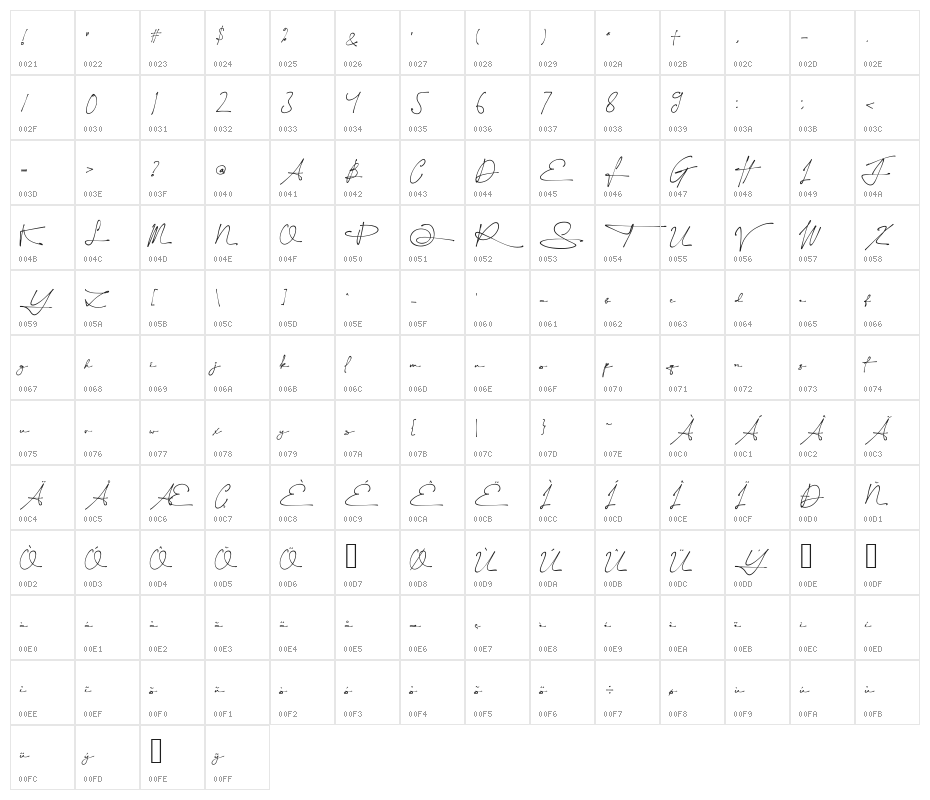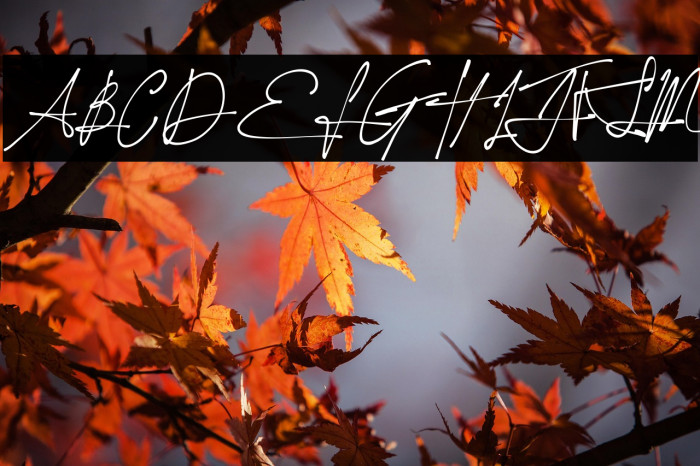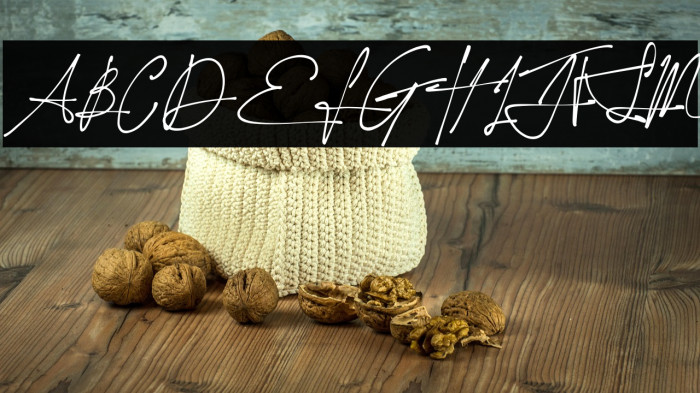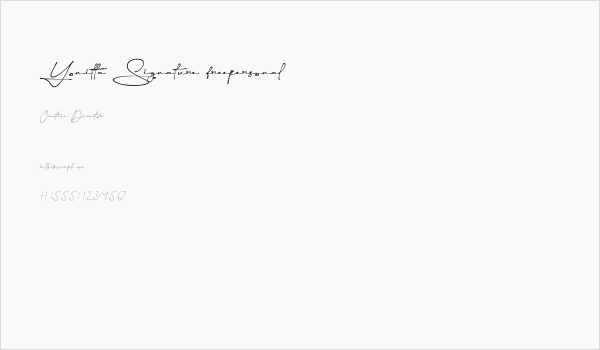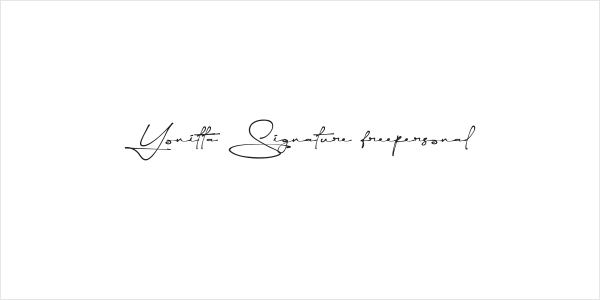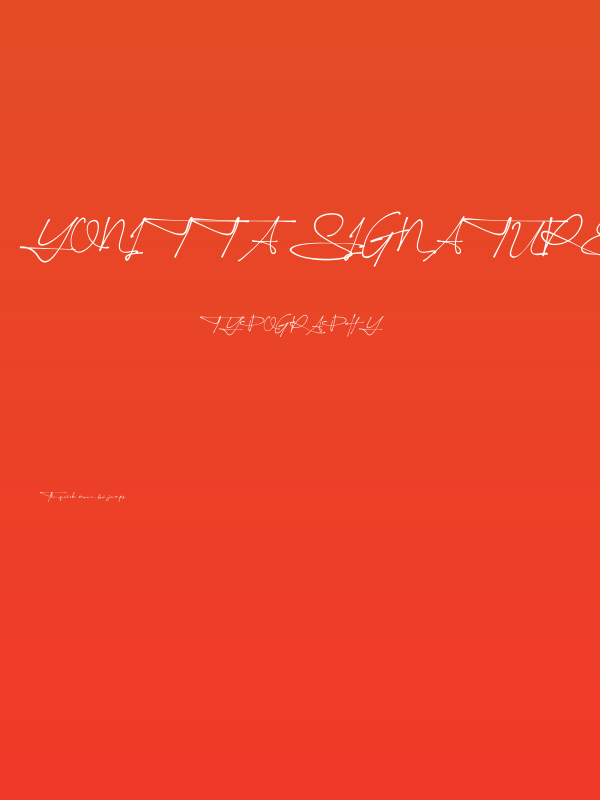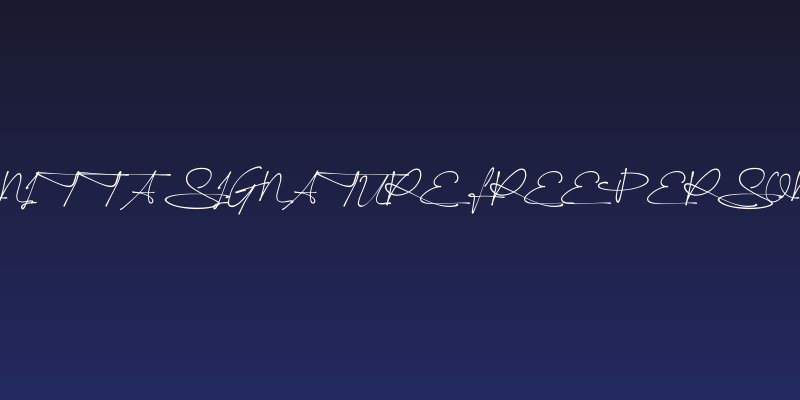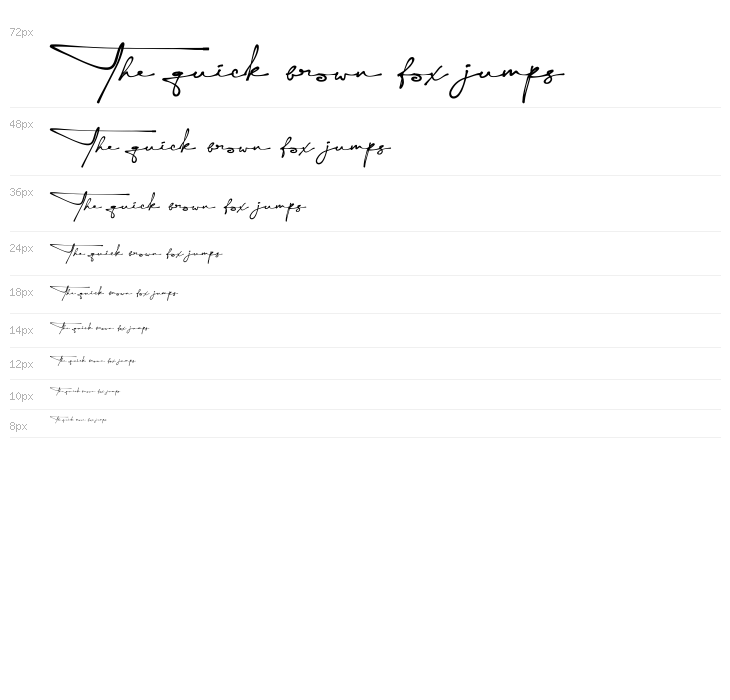
Yonitta Signature freepersonal Font
Yonitta Signature freepersonal Description
This font exudes a personal and artistic flair, characterized by its flowing, cursive style that mimics natural handwriting. The uppercase letters are elegantly elongated with dramatic loops and swirls, while the lowercase letters maintain a more subtle and consistent flow. The numerals are distinct yet harmonious with the overall script, featuring gentle curves and a slightly playful touch. Special characters are thoughtfully integrated, maintaining the font's cohesive aesthetic. This font's unique style is perfect for adding a touch of elegance and personality to any project.
| Proposed Projects | Ideal for wedding invitations, personal branding, signature logos, and artistic projects. |